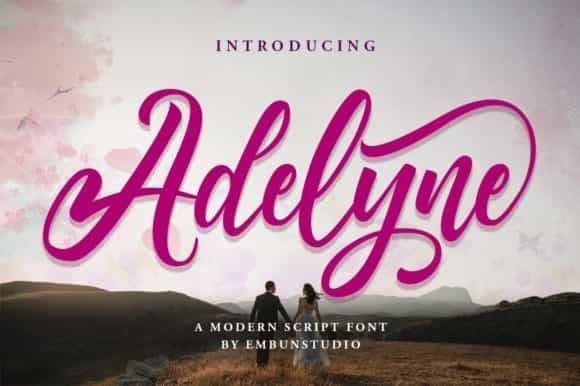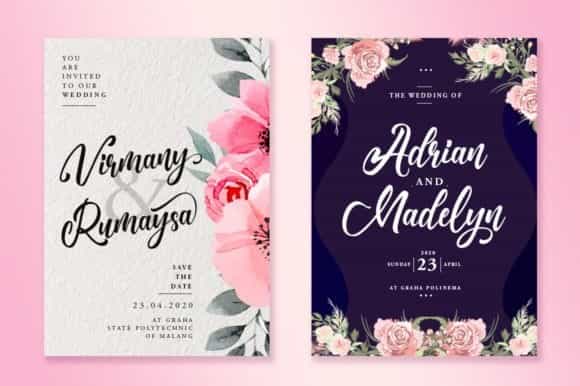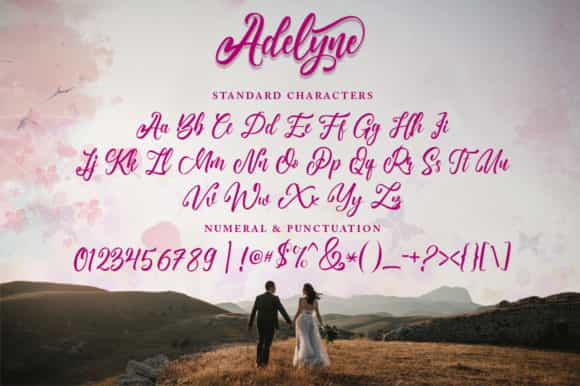
Adelyne is an epitome of simplicity and elegance at the same time. No matter if you are in search of fonts for Instagram or calligraphy scripts for your DIY projects, this font will make any creative idea a real work of art!